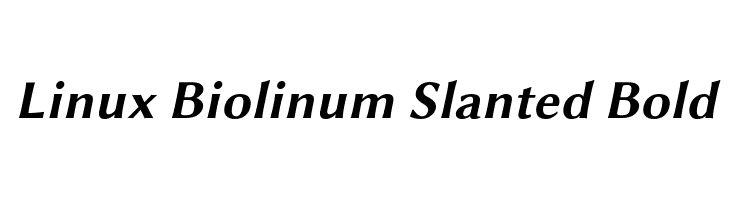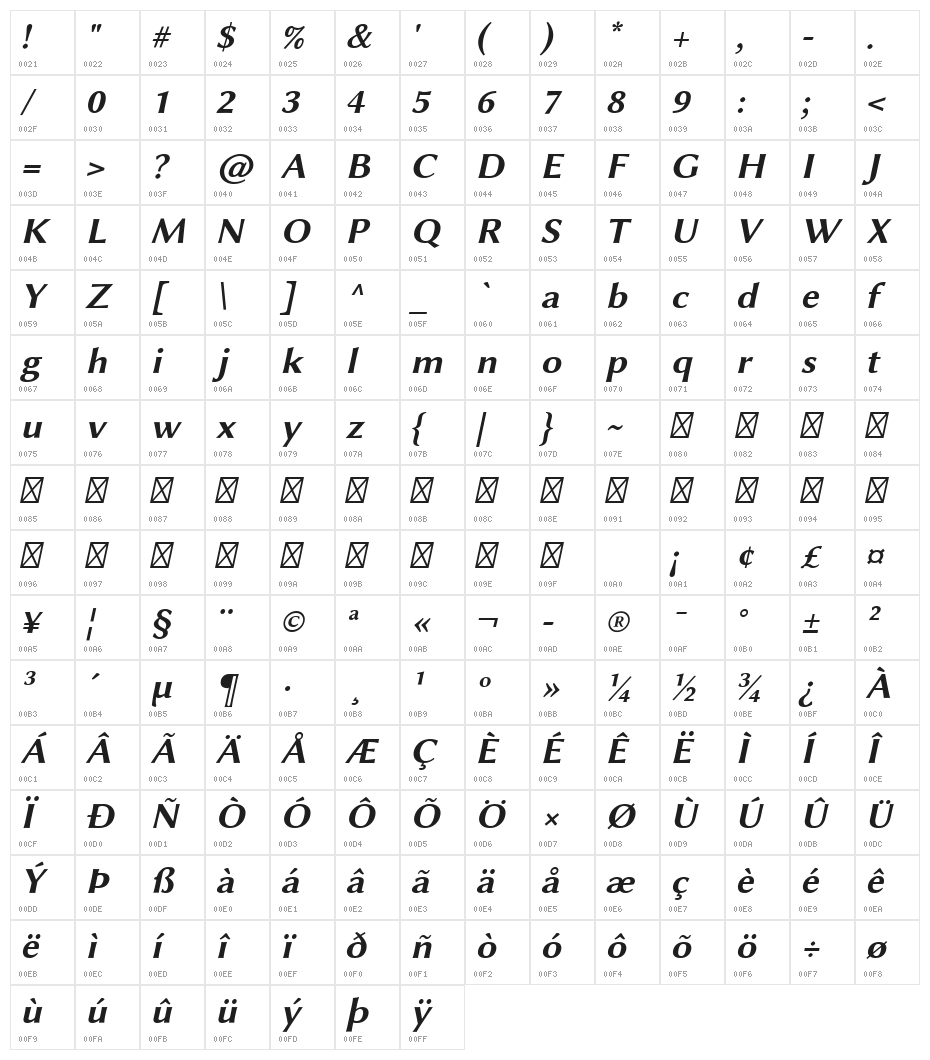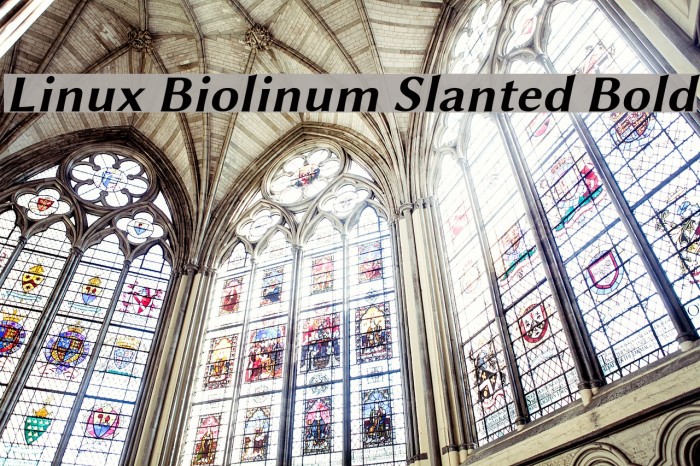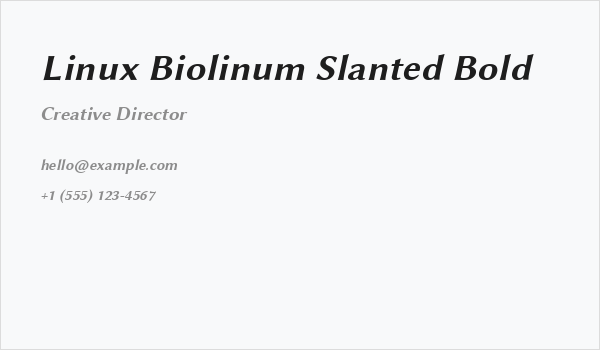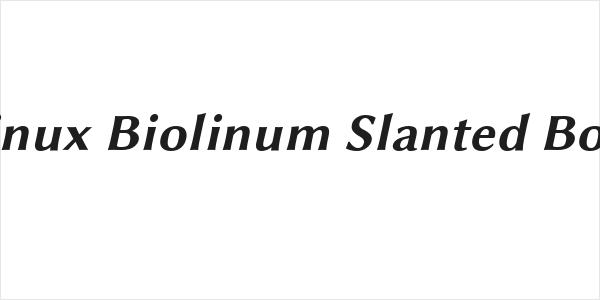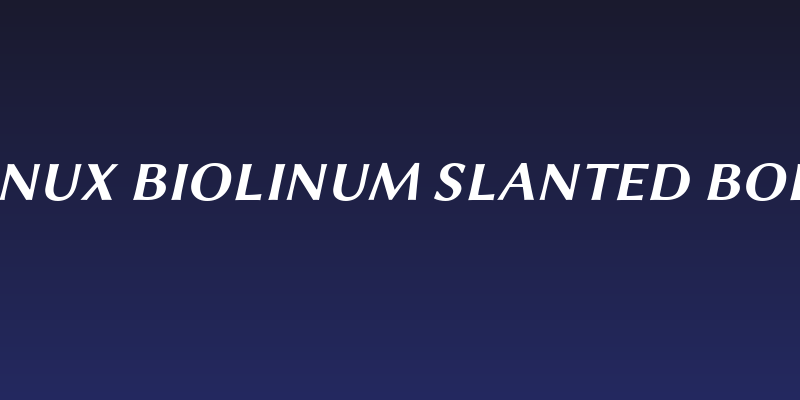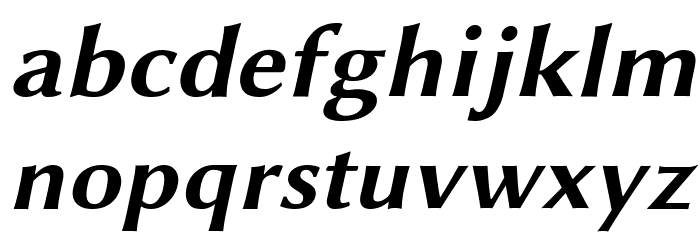
Linux Biolinum Slanted Bold Font
Linux Biolinum Slanted Bold Description
This font exhibits a modern and elegant style with a slanted, italicized appearance, giving it a dynamic and sophisticated look. The characters are bold, providing a strong presence on the page. The uppercase letters are slightly taller than the lowercase, maintaining a consistent slant throughout. The numerals are clear and distinct, ensuring readability. Special characters are well-defined, complementing the overall design. The font's smooth curves and sharp edges create a balanced contrast, making it suitable for various design applications.
Proposed ProjectsIdeal for branding, headlines, posters, and editorial design where a modern and sophisticated look is desired.